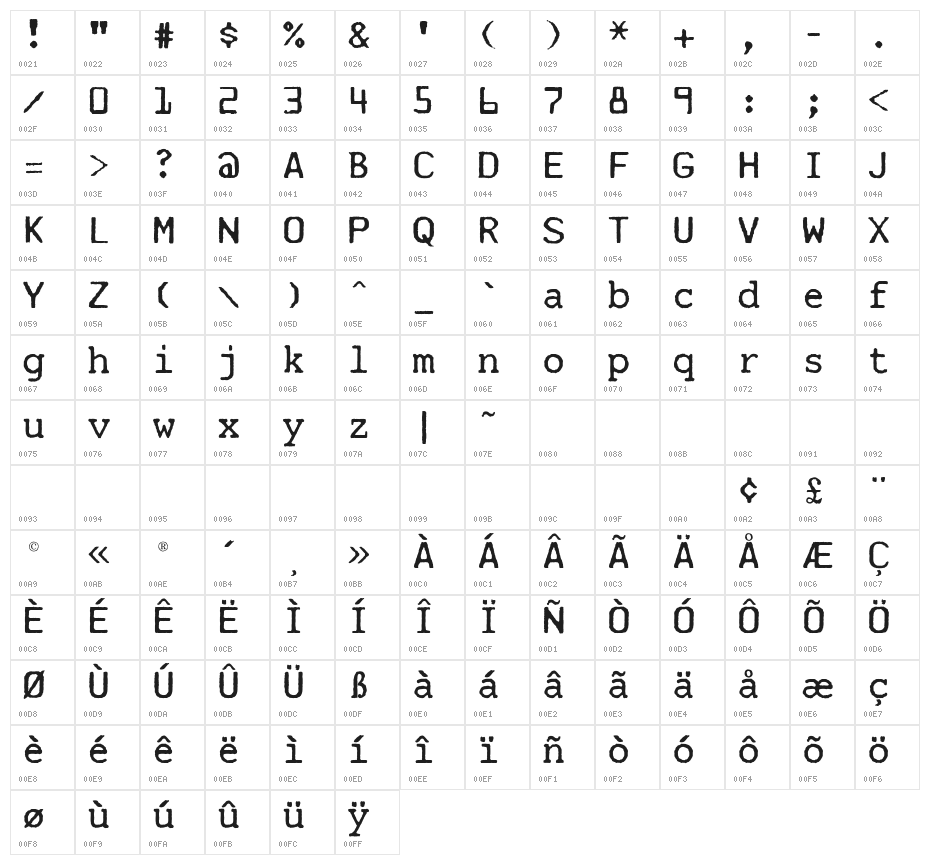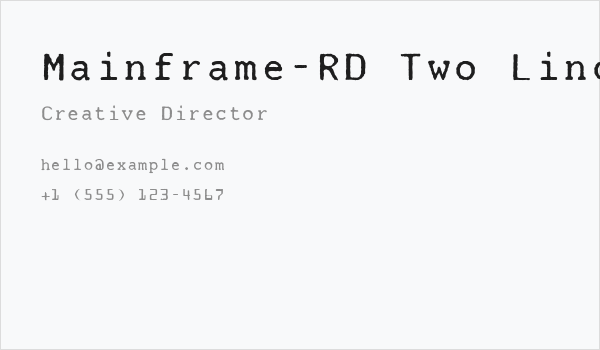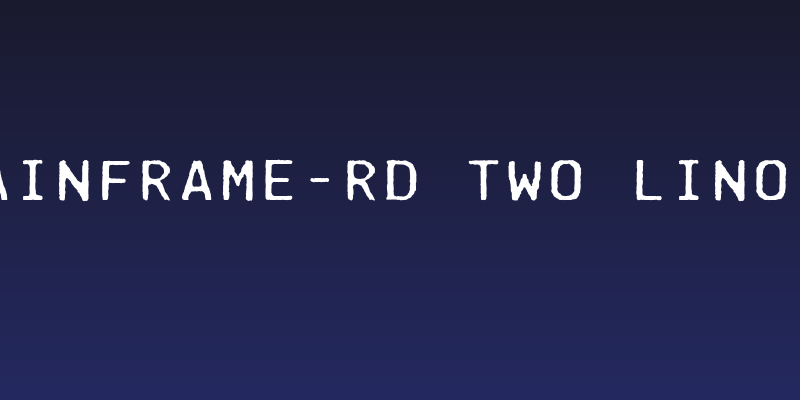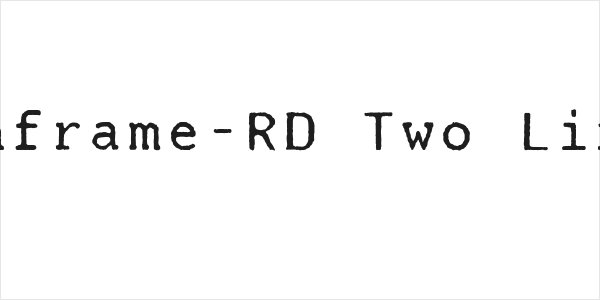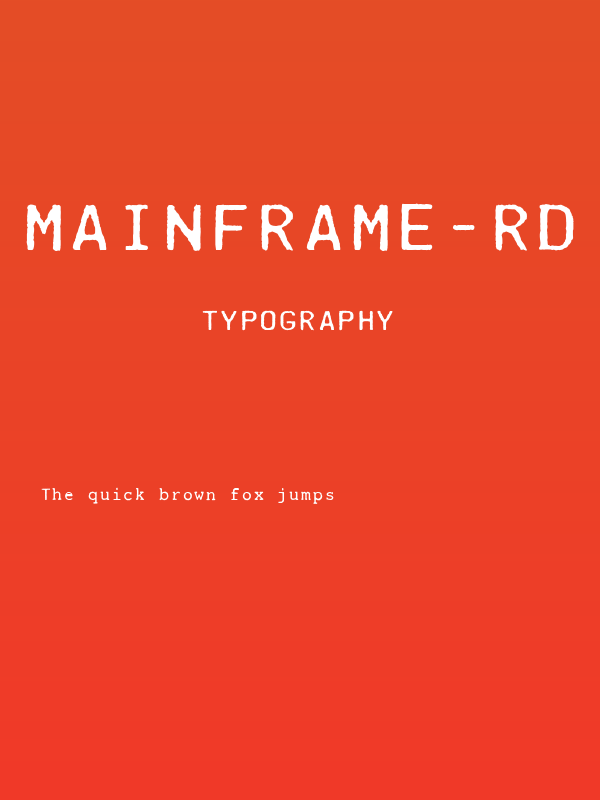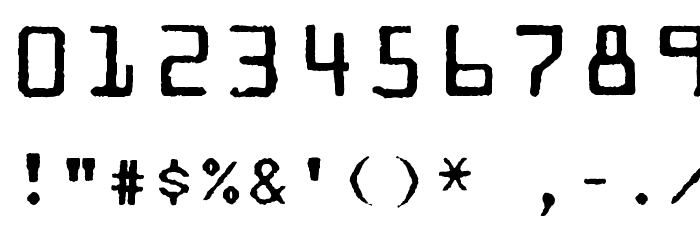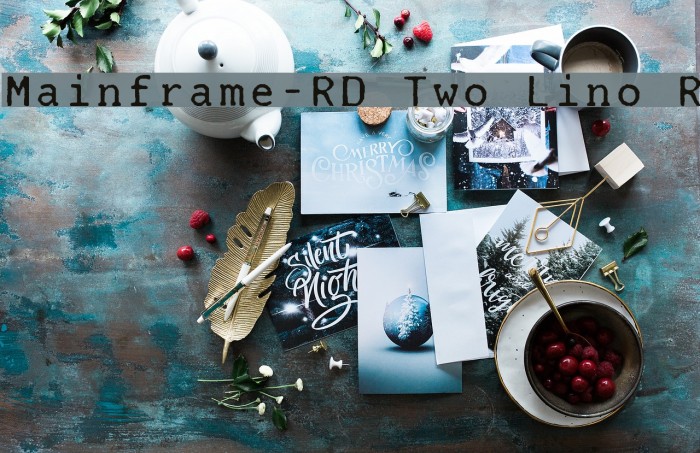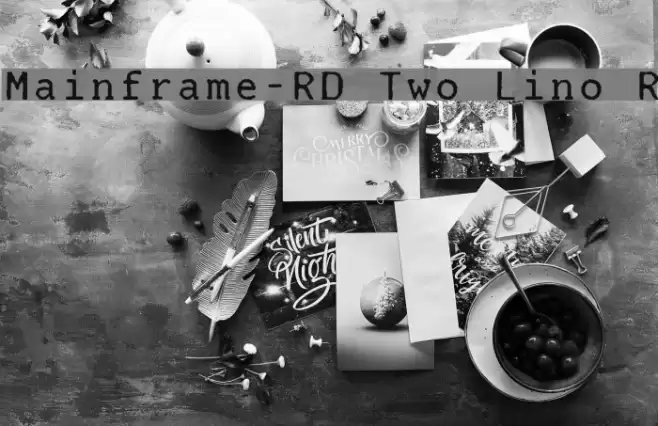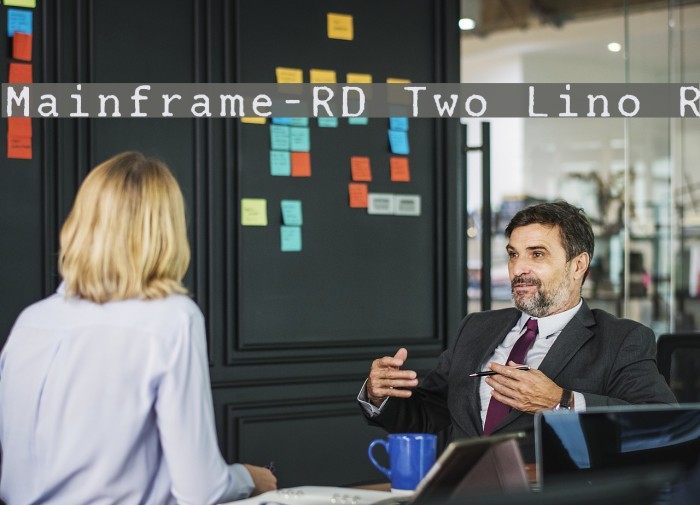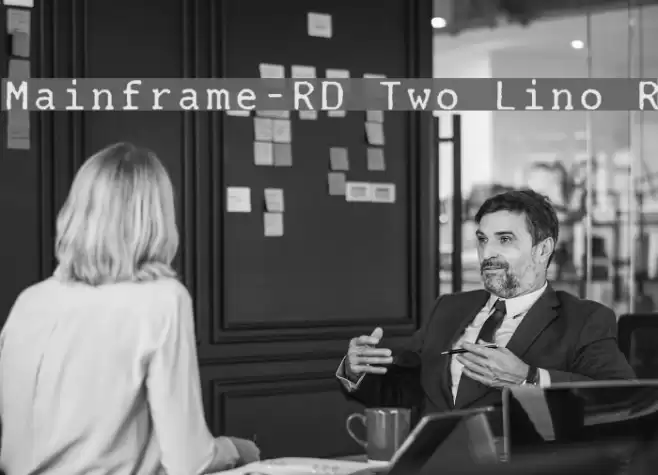
Mainframe-RD Two Lino R Font
Mainframe-RD Two Lino R Description
This font exhibits a distinctive typewriter style with a vintage, mechanical feel. The characters are monospaced, giving it a uniform appearance reminiscent of old typewriters. Each letter and number has a slightly distressed look, adding to its retro charm. The uppercase and lowercase letters maintain consistent height and width, while the numerals are bold and prominent. Special characters are clearly defined, maintaining the overall aesthetic. The font's design is both functional and decorative, suitable for projects that require a nostalgic or industrial touch.
| Overall Style | Vintage |
| Use Case | Logos, Posters, Branding |
| Proposed Projects | Ideal for retro-themed designs, typewriter art, vintage posters, and industrial branding. |